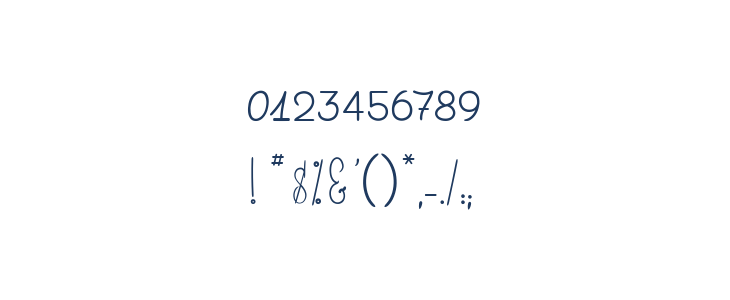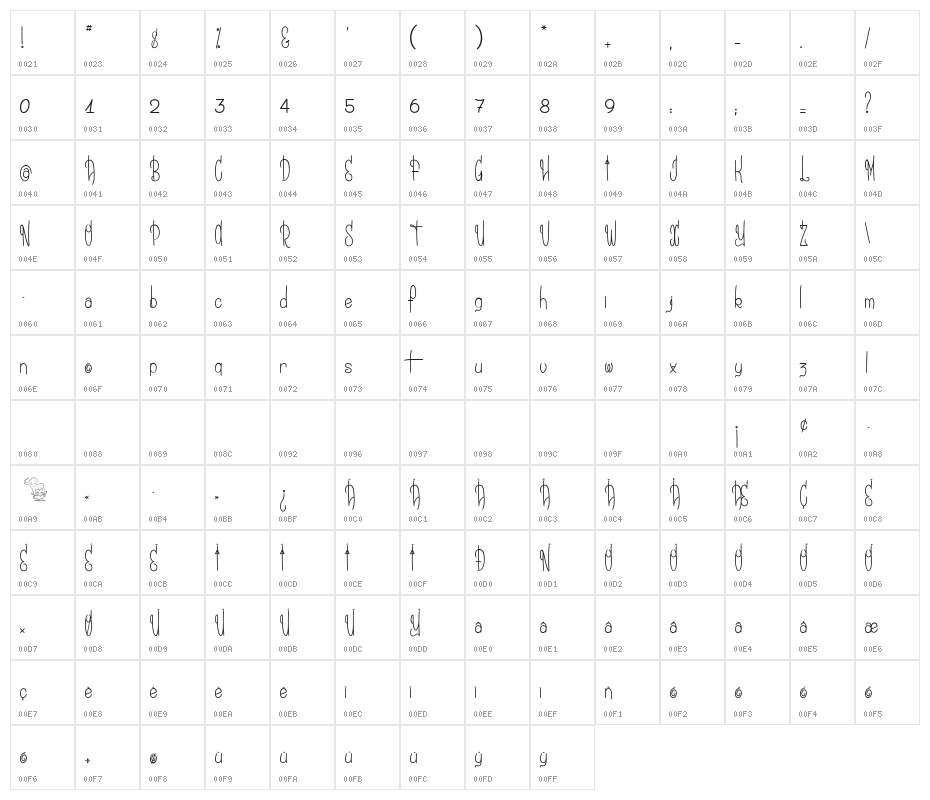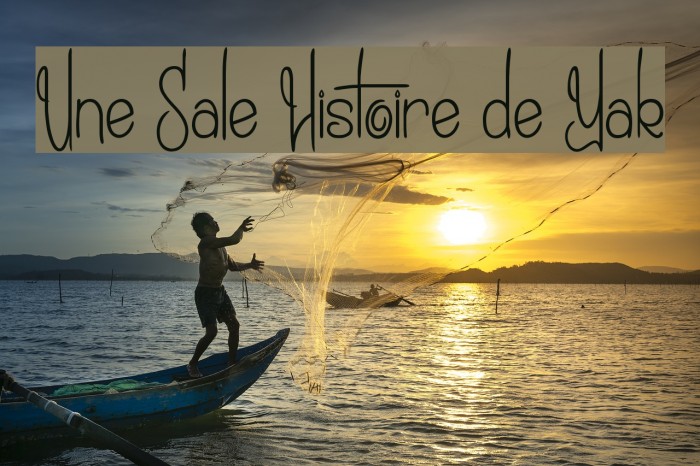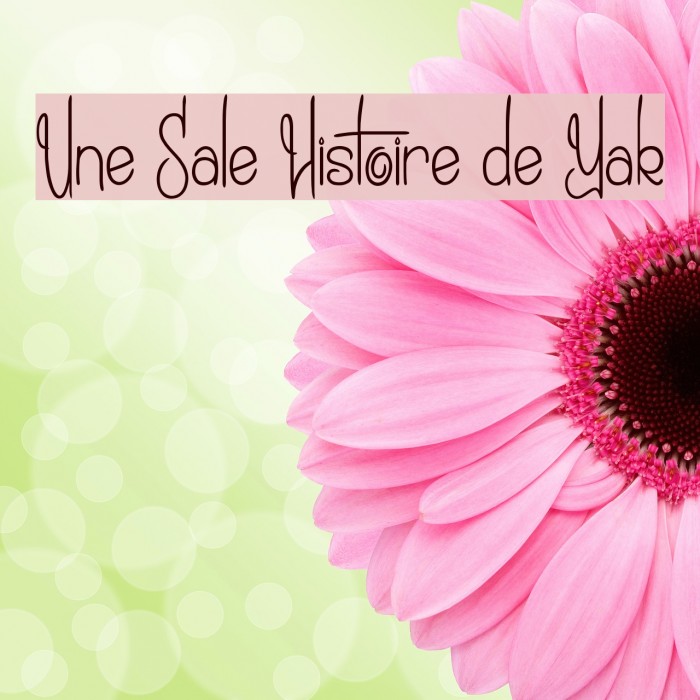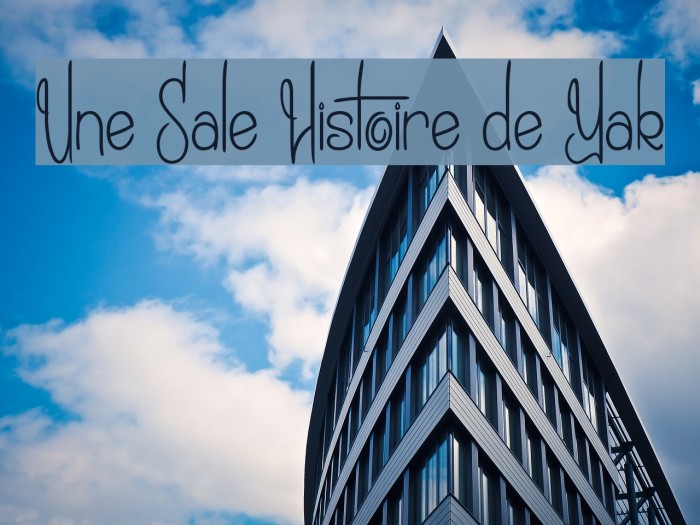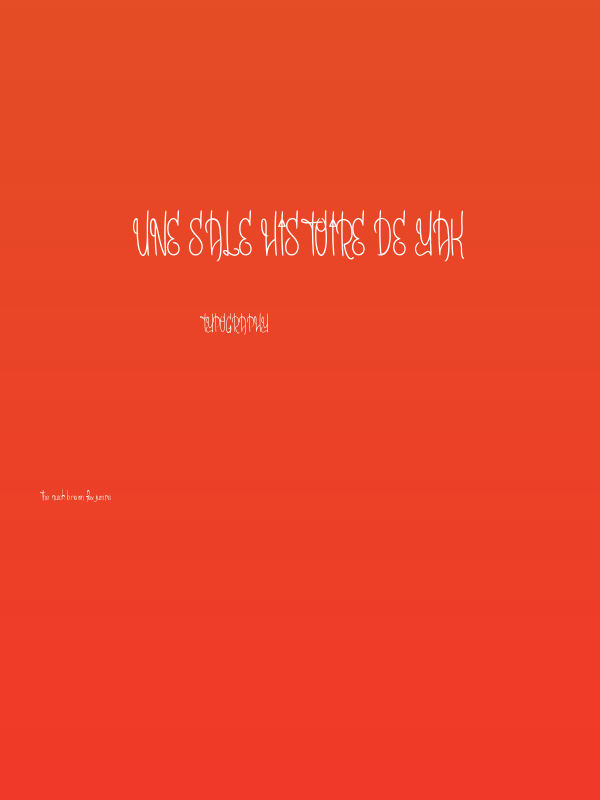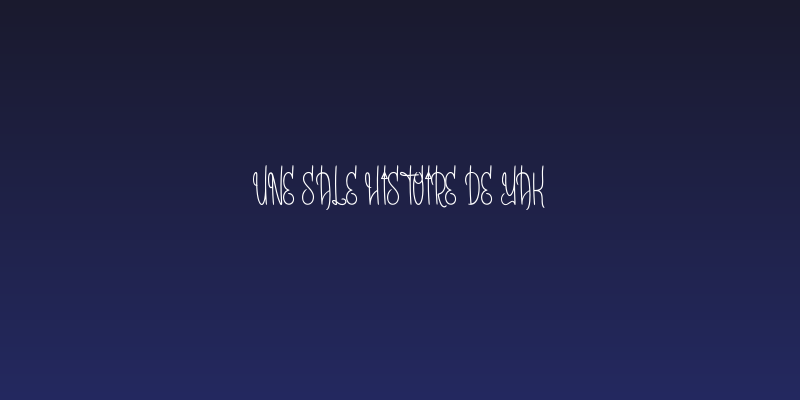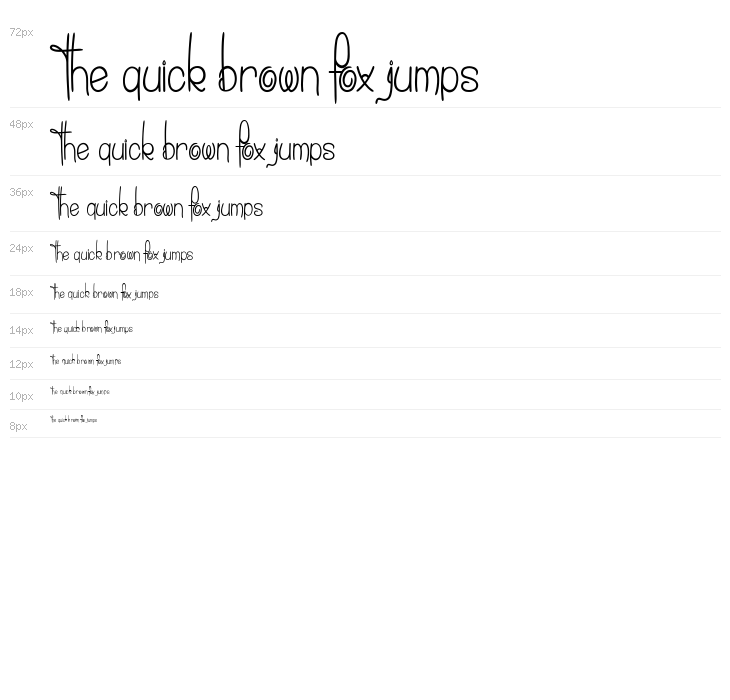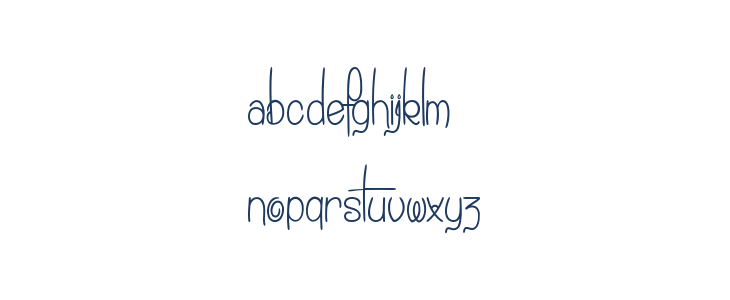
Une Sale Histoire de Yak Font
Une Sale Histoire de Yak Description
This font features a whimsical and playful design, characterized by its tall, narrow letterforms and unique, decorative elements. The uppercase letters have a distinct, elongated appearance with creative flourishes, while the lowercase letters maintain a more consistent and flowing style. The numerals are rounded and maintain the playful aesthetic, complementing the overall design. Special characters are creatively integrated, adding to the font's charm. This font's unique style makes it stand out, offering a blend of elegance and fun.
| Proposed Projects | Ideal for children's book covers, playful branding, invitations, and creative posters. |